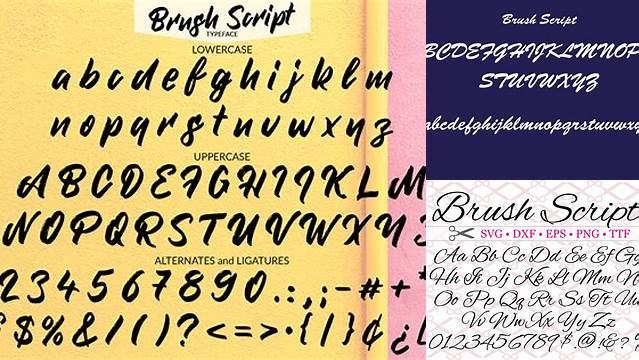
Free Brush Script Fonts For Commercial Use
Let's dive into the world of brush script fonts for freemercial use! If you're a designer, marketer, or content creator, you know how crucial it is to find the perfect font. And when that font can be used for free and for commercial projects? That's the jackpot! In this guide, we'll explore everything you need to know about brush script fonts, where to find them, and how to use them effectively.
1. Understanding Brush Script Fonts
Brush script fonts are designed to mimic the look of handwriting, often created with a brush or calligraphy pen. These fonts bring a personal and artistic touch to any project. The strokes are usually fluid and dynamic, adding a sense of movement and authenticity. Brush script fonts are often used in branding, logos, invitations, and social media graphics because of their ability to convey a sense of warmth and informality. The key to understanding brush script fonts lies in recognizing their diverse styles – from elegant and refined to bold and rugged, each style evokes a different mood and is suitable for various design needs. When you're choosing a brush script font, think about the overall message and aesthetic you want to achieve. For instance, a formal invitation might benefit from a delicate and flowing script, while a rock band's poster would be better suited with a bolder, more aggressive typeface. By considering these factors, you can select a brush script font that truly enhances your design.
5. Tips for Using Brush Script Fonts Effectively
Using brush script fonts effectively can elevate your design from good to great! These fonts are known for their unique, handwritten style, which adds a personal touch to any project. However, it’s crucial to use them wisely to avoid readability issues and maintain a professional look. One tip is to use brush script fonts sparingly. They work best for headings, logos, and short phrases rather than large blocks of text. Pairing them with a simple, clean sans-serif font for body text can create a balanced and visually appealing design. Pay attention to the spacing between letters and lines, as brush script fonts can sometimes look cramped. Adjust the kerning and leading to improve readability. Also, consider the overall tone and message of your project. A formal event invitation might call for an elegant and refined script, while a casual blog post could benefit from a more playful and informal one. Experiment with different weights and styles of brush script fonts to find the perfect match for your design. By following these tips, you can harness the beauty of brush script fonts and create stunning visuals that capture attention and convey your message effectively.
6. Pairing Brush Script Fonts with Other Fonts
Pairing brush script fonts with the right complementary fonts is an art that can significantly enhance the overall aesthetic of your design. Since brush script fonts are often decorative and attention-grabbing, it's generally best to pair them with simpler, more neutral fonts to create balance and readability. A classic combination is using a brush script font for headings and titles, paired with a clean sans-serif font like Arial, Helvetica, or Open Sans for body text. This approach allows the brush script to stand out while ensuring the main content is easy to read. Another effective pairing is using a brush script font with a serif font like Times New Roman or Georgia. This combination can create a more traditional and elegant look, suitable for projects like invitations or formal announcements. When choosing fonts to pair, consider their weights and styles. A bold brush script might work well with a lighter sans-serif font, while a delicate script could be paired with a slightly heavier serif font. Experiment with different combinations to find what works best for your specific project. The key is to create a harmonious balance that enhances readability and conveys the desired message effectively.
7. Common Mistakes to Avoid When Using Brush Script Fonts
When working with brush script fonts, it's easy to fall into some common traps that can detract from your design. One frequent mistake is using brush script fonts for large blocks of text. Their intricate and decorative nature can make them difficult to read in long paragraphs, leading to a frustrating experience for the reader. Instead, reserve brush script fonts for headings, titles, and short phrases where their unique style can shine without compromising readability. Another common error is overusing brush script fonts in a single design. Too much of a good thing can quickly become overwhelming and visually chaotic. Stick to one or two brush script fonts at most and pair them with simpler, more neutral fonts for balance. Ignoring the spacing between letters and lines is another pitfall. Brush script fonts often require careful kerning and leading adjustments to ensure readability and prevent them from looking cramped. Additionally, failing to consider the overall tone and message of your project can lead to a mismatched font choice. A playful brush script might not be suitable for a formal business presentation, just as an elegant script might feel out of place on a casual blog post. By avoiding these common mistakes, you can harness the beauty of brush script fonts and create visually appealing and effective designs.
8. Using Brush Script Fonts in Logos
Using brush script fonts in logos can add a touch of personality and uniqueness, making your brand stand out. Brush script fonts often convey a sense of creativity, authenticity, and a personal touch, which can be particularly effective for businesses that want to appear approachable and friendly. However, it’s essential to use them strategically. A well-chosen brush script font can make a logo memorable, but a poorly chosen one can make it look unprofessional or difficult to read. When selecting a brush script font for a logo, consider the overall brand identity and target audience. A sophisticated script might be suitable for a high-end boutique, while a bolder, more playful script could work well for a children’s brand. Ensure the font is legible and scalable, as logos need to look good in various sizes, from business cards to large banners. It’s also a good idea to test the logo in black and white to ensure it still looks good without color. Keep the logo simple and avoid overcrowding it with too many elements. A brush script font paired with a simple icon or wordmark can create a clean and effective logo that represents your brand well. Remember, a logo is the face of your business, so choose a brush script font that reflects your brand’s values and personality.
9. Brush Script Fonts for Social Media Graphics
Brush script fonts are perfect for spicing up your social media graphics! They add a touch of personality and flair that can really grab attention as people scroll through their feeds. When you're trying to make your posts stand out, a well-chosen brush script font can make all the difference. Use them for eye-catching headlines, quotes, or to highlight important information. Just remember to keep it readable – no one wants to squint to understand your message! Pairing a brush script with a simpler font for the body text is a great way to balance style and clarity. Think about your brand's vibe, too. A swirly, elegant script might be perfect for a beauty brand, while a bolder, messier one could suit a more edgy, urban style. And don't forget about color! A brush script font in a vibrant hue can really pop against a clean background. Experiment with different styles and combinations to find what works best for your brand's aesthetic. With the right brush script font, your social media graphics will be sure to turn heads and get those likes rolling in!
10. The Popularity of Brush Script Fonts in Modern Design
The popularity of brush script fonts in modern design is undeniable. These fonts bring a unique blend of personality and style that resonates with contemporary aesthetics. The handwritten feel of brush script fonts adds a personal touch to digital designs, making them feel more authentic and approachable. This trend is especially prevalent in branding, where businesses are looking to create a more human connection with their customers. Brush script fonts are also widely used in social media graphics, website headers, and marketing materials, where they help to capture attention and convey a sense of creativity and innovation. The versatility of brush script fonts is another reason for their popularity. They can be adapted to suit a wide range of design styles, from minimalist and modern to vintage and rustic. Whether you're designing a logo for a hip coffee shop or creating a poster for a music festival, a well-chosen brush script font can add that extra touch of visual appeal. As design trends continue to evolve, brush script fonts are likely to remain a popular choice for designers looking to add a touch of personality and style to their work.